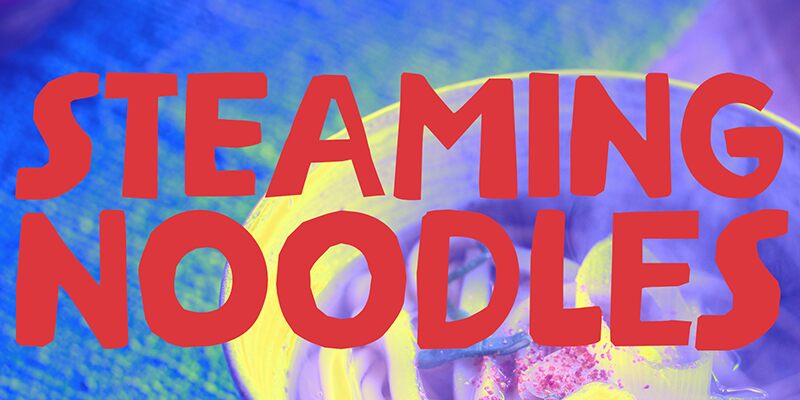
Steaming Noodles DEMO Regular
Steaming Noodles font is a true display font from the well-known Dutch type artist David Kerkhoff. The lettering design is inspired by noodles and Japanese restaurants, giving it a comic, fun, and rounded style. Undoubtedly an exciting choice for your next bold presence project.
Among places where this free display font can be used are comic covers, food restaurant menus (Japanese/Asian), nachos packaging, street food truck signs, billboard designs for food advertisements, poster prints, online campaigns that advertise Asian cuisine or recipes blogs.